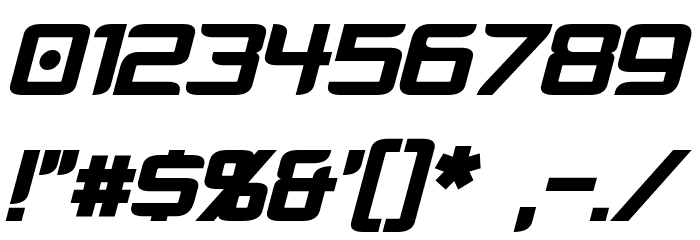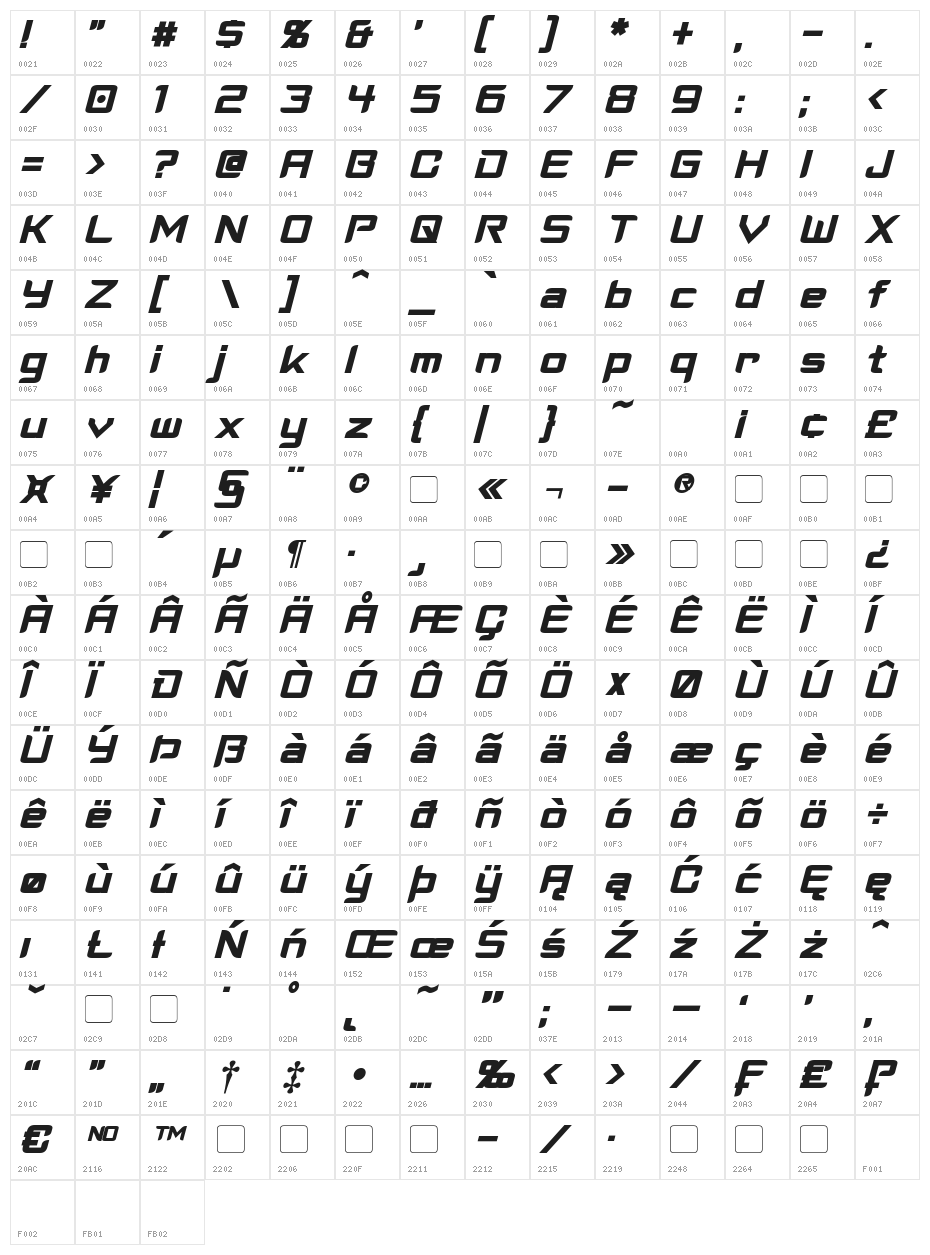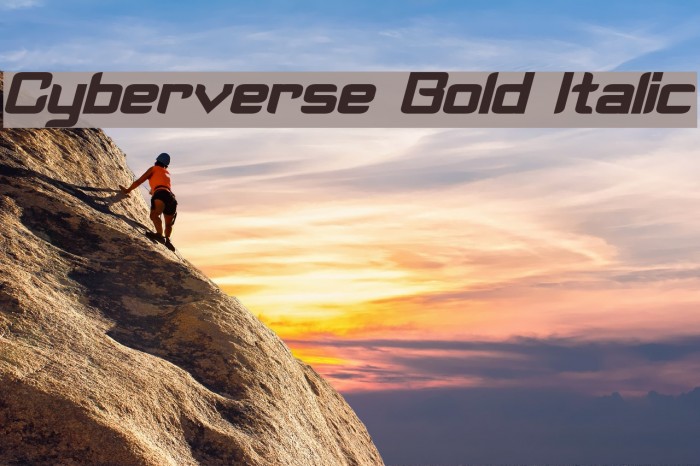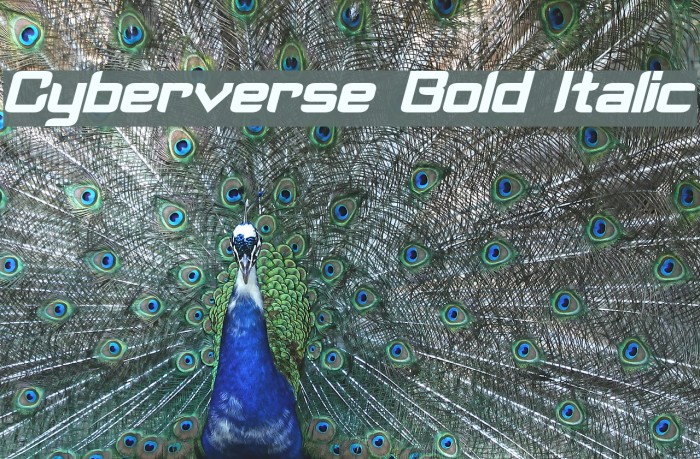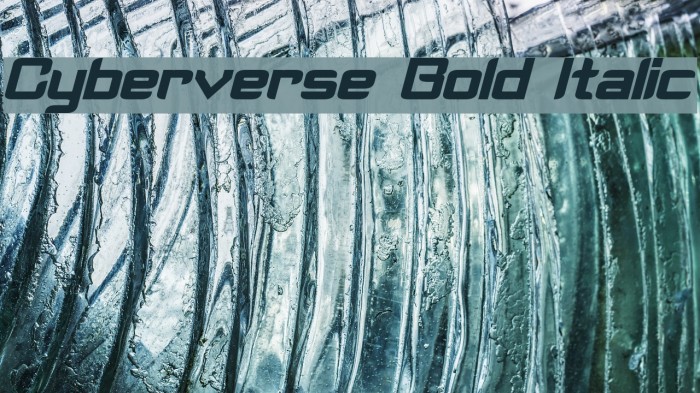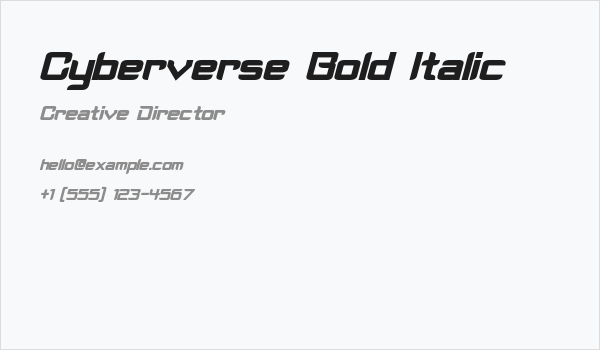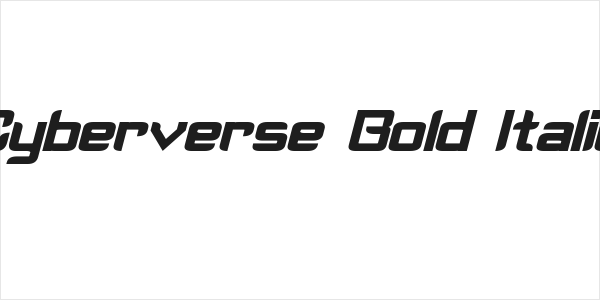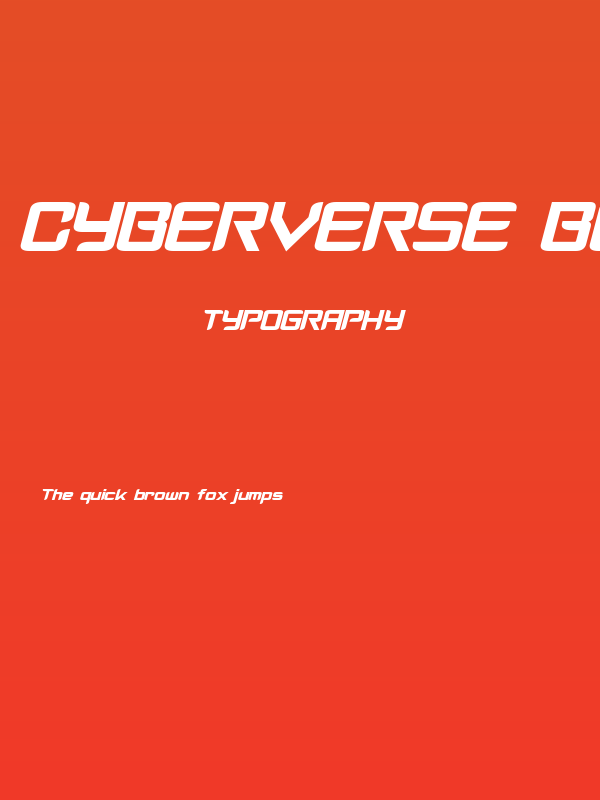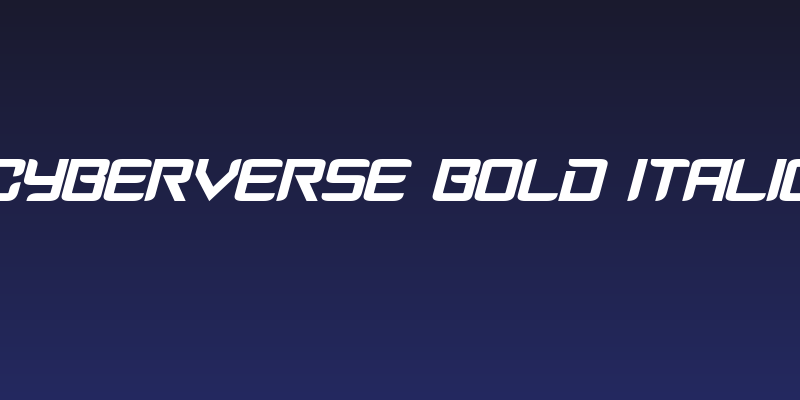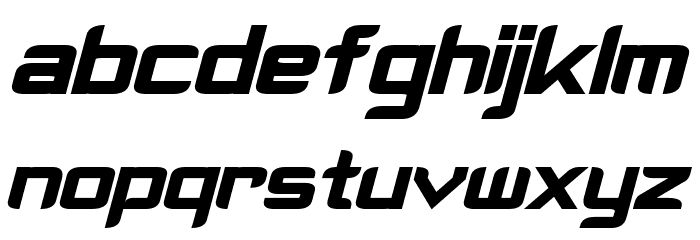
Cyberverse Bold Italic Font
Cyberverse Bold Italic Description
This font features a futuristic and dynamic design with a bold and italicized style. The characters are angular and slightly slanted, giving a sense of motion and energy. The uppercase letters are distinct with sharp edges and a geometric structure, while the lowercase letters maintain a consistent style with a slightly more rounded appearance. The numerals are clear and bold, matching the overall aesthetic. Special characters are designed to complement the alphanumeric set, maintaining the same angular and modern look. This font is ideal for projects that require a modern, tech-inspired feel.